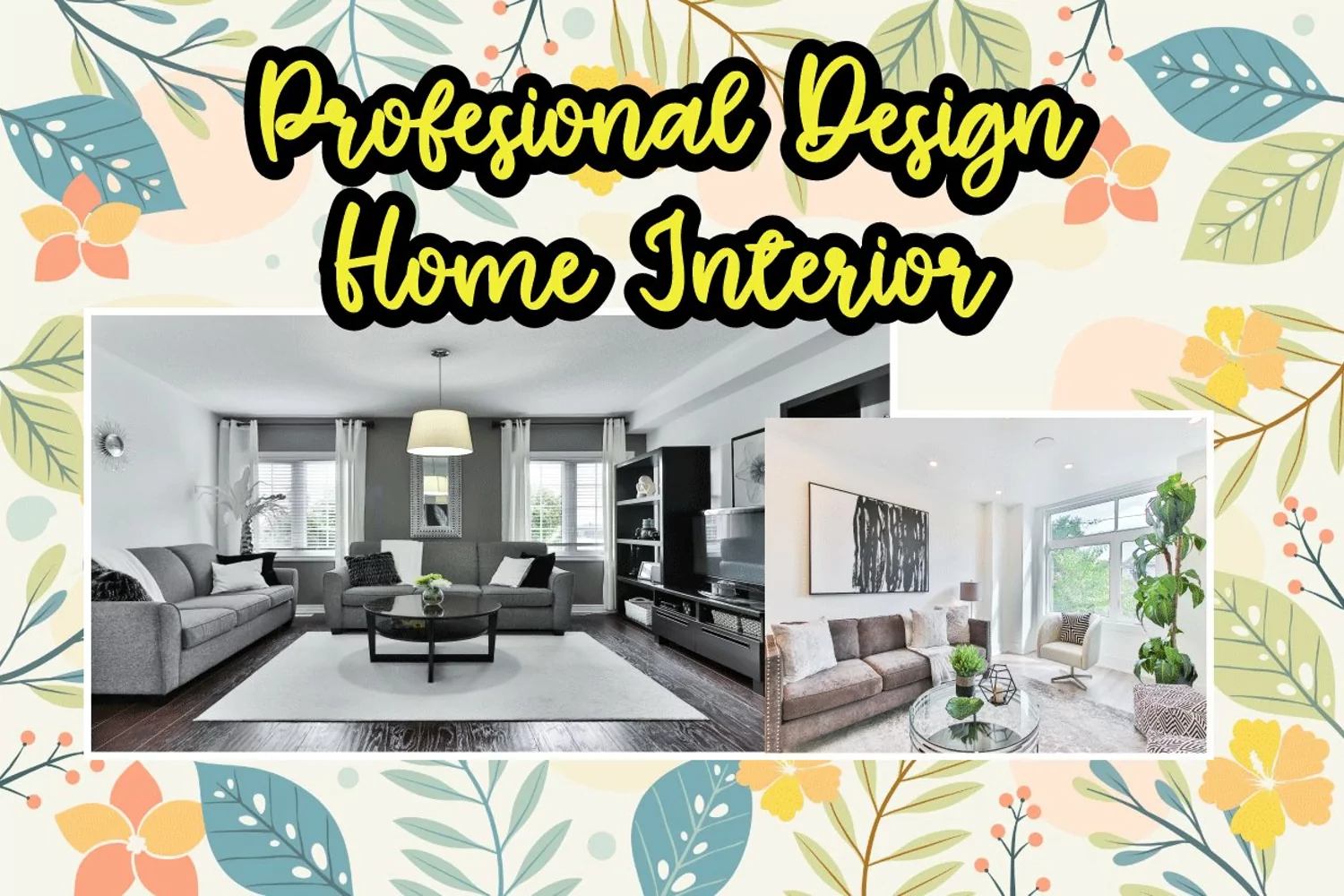
New Boyfriend a simple script calligraphy style, So beautiful on invitation like greeting cards, branding materials, business cards, quotes, posters, and more!!
NewBoyfriend